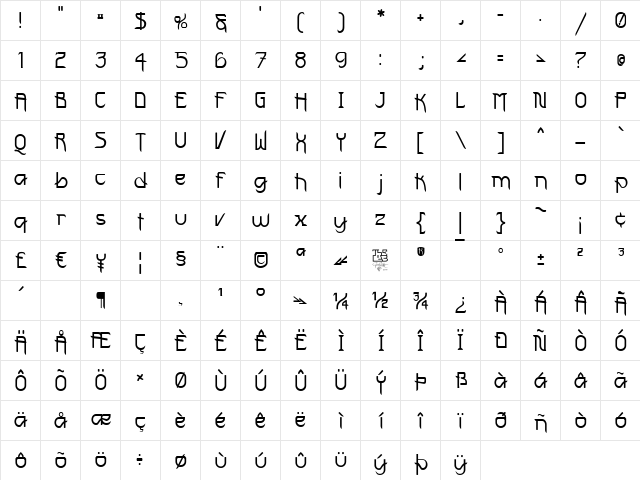
FuturexVariationSwish Regular
Design Context for FuturexVariationSwish Typeface
FuturexVariationSwish channels digital-age aesthetics through its sharp, structured letterforms — ideal for brands that want to signal innovation.
Pro Tip: Try FuturexVariationSwish with generous letter-spacing in UI labels and navigation — the geometric forms benefit from room to breathe.